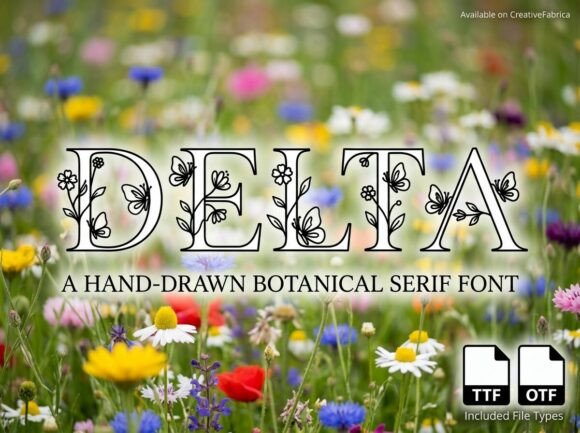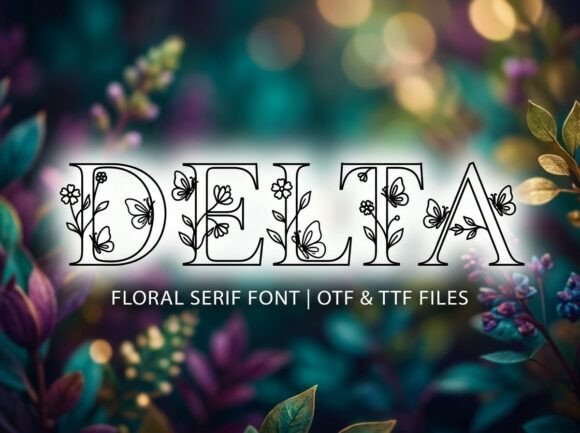
Introducing Delta Font: The Charming Botanical Serif for Nature-Inspired Designs
Are you a designer or crafter looking for a font that captures the delicate harmony of nature? Look no further than Delta, a beautiful botanical serif font that embodies a natural and romantic soul. With its elegant, hollow letterforms and charming floral sprouts, Delta is the perfect choice for a variety of design projects that celebrate the beauty of the great outdoors.
A Font that Celebrates the Beauty of Nature
Delta is a unique and captivating font that features rhythmic, hand-drawn floral sprouts and butterfly silhouettes that weave through each character. This beautiful design element adds a touch of whimsy and elegance to any project, making it perfect for designers and crafters who want to create nature-inspired designs that stand out. The font’s light graphic weight and garden-fresh personality make it an excellent choice for a variety of applications, from independent florist branding to eco-friendly product packaging.
Delta’s versatility makes it an excellent choice for a range of design projects. Here are just a few ideas to get you started:
- Independent Florist Branding: Delta’s elegant and natural design makes it perfect for florists who want to create a beautiful and cohesive brand identity.
- Eco-Friendly Product Packaging: The font’s eco-friendly and natural vibe makes it an excellent choice for product packaging that wants to convey a sense of sustainability and environmental responsibility.
- Wedding Stationery: Delta’s romantic and elegant design makes it perfect for wedding stationery, including invitations, save-the-dates, and thank-you cards.
- Social Media Headers: The font’s bold and eye-catching design makes it an excellent choice for social media headers that want to make a statement and stand out from the crowd.
Key Features of Delta Font
So, what makes Delta font so special? Here are just a few key features that set it apart:
- Elegant, Hollow Letterforms: Delta’s letterforms are characterized by elegant, hollow designs that add a touch of sophistication and elegance to any project.
- Rhythmic, Hand-Drawn Floral Sprouts: The font’s hand-drawn floral sprouts add a touch of whimsy and natural beauty to each character.
- Butterfly Silhouettes: The font’s butterfly silhouettes add a touch of playfulness and elegance to each character.
- Light Graphic Weight: Delta’s light graphic weight makes it perfect for a variety of design applications, from digital projects to print materials.
Why Choose Delta Font?
So, why choose Delta font for your next design project? Here are just a few reasons why Delta stands out:
- Unique and Eye-Catching Design: Delta’s unique and eye-catching design makes it perfect for designers and crafters who want to create nature-inspired designs that stand out.
- Versatile: The font’s versatility makes it an excellent choice for a range of design projects, from branding and packaging to wedding stationery and social media headers.
- Elegant and Sophisticated: Delta’s elegant and sophisticated design makes it perfect for designers and crafters who want to create beautiful and cohesive designs that reflect their brand’s personality.
In conclusion, Delta font is a charming botanical serif font that captures the delicate harmony of nature. With its elegant, hollow letterforms and charming floral sprouts, Delta is the perfect choice for designers and crafters who want to create nature-inspired designs that stand out. Whether you’re looking to create independent florist branding, eco-friendly product packaging, wedding stationery, or social media headers, Delta font is an excellent choice. So why wait? Download Delta font today and start creating beautiful, nature-inspired designs that reflect your brand’s personality.